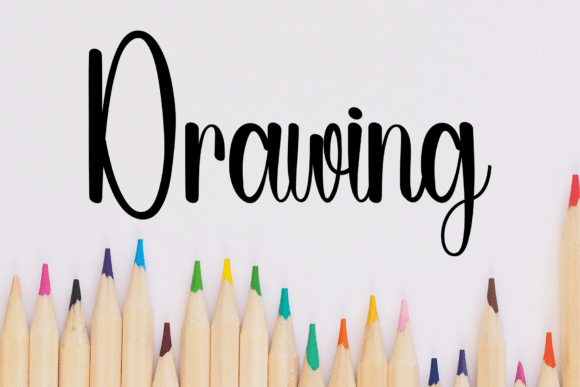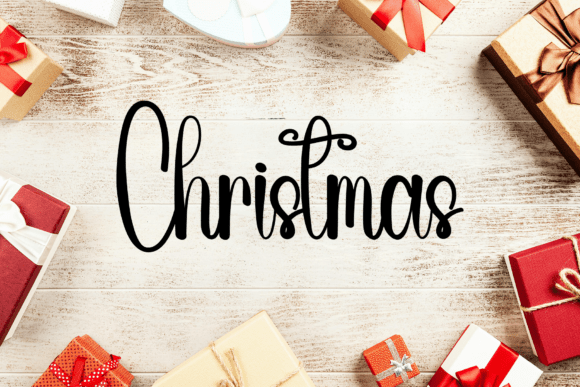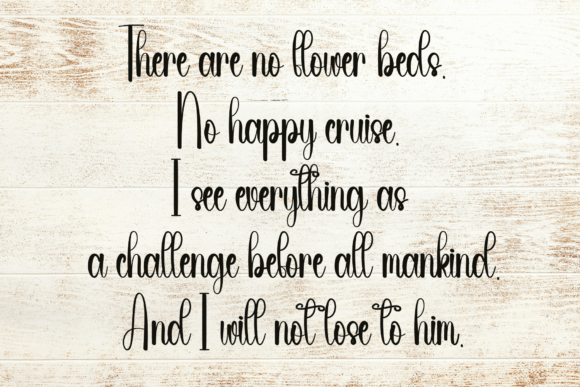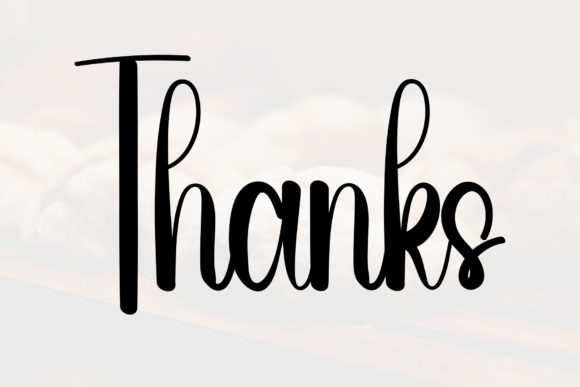
Unleashing the Perfect Blend of Elegant and Casual: The Augusta Font
There’s something magical about discovering the perfect font for a project – the moment when all the pieces fall into place, and you can envision the final result. It’s that feeling that drives designers to experiment, to try out new styles, and to push the boundaries of creativity. For those who’ve been searching for a font that captures the essence of luxury and elegance, while still exuding a relaxed, sporty vibe, the Augusta Font is sure to be a game-changer.
This versatile font is designed to bring a touch of sophistication to a wide range of applications, from branding and logos to wedding supplies, greeting cards, and marketing promotions. With its distinctive handwritten feel, reminiscent of being drawn with a marker, the Augusta Font adds a unique charm to any design.
Augusta Font Key Features
- Unique Characteristics: Features elegant, cursive script with subtle flourishes, ideal for formal invitations, wedding stationery, and luxury branding
Augusta Font Review
As a designer, I recently had the chance to work with the Augusta font, and I must say it’s a mixed bag. ✨ On the plus side, Augusta has a unique, elegant feel that’s perfect for projects that need a touch of sophistication. The font is highly legible, even at small sizes, and its versatility makes it suitable for a wide range of applications, from body text to headings.
The font’s design is a beautiful blend of classic and modern elements, making it a great choice for anyone looking to add a bit of personality to their work. The subtle flair at the ends of the strokes adds a touch of whimsy that’s hard to resist. ✨ Additionally, Augusta comes in a range of weights and styles, making it easy to find the perfect fit for your project.
However, there are some limitations to consider. ⚠️ One of the main issues I had with Augusta is its lack of support for non-Latin scripts. This makes it a less-than-ideal choice for projects that require multilingual support. Additionally, the font’s complexity can make it difficult to pair with other fonts, which may limit your design options.
Overall, I think Augusta is a solid choice for designers who need a high-quality font for their projects. While it may not be the best option for every project, it’s definitely worth considering for those that require a touch of elegance and sophistication.
- Highly legible, even at small sizes
- Unique, elegant feel
- Versatile and suitable for a wide range of applications
- Range of weights and styles available
- Lack of support for non-Latin scripts
- Complexity can make it difficult to pair with other fonts
Tips for Getting the Most Out of Augusta Font
Use Augusta Font for formal or elegant designs, such as invitations, business cards, or wedding stationery.
Combine Augusta Font with bold or italic styles for added emphasis.
Experiment with different font sizes and colors to achieve a unique look.
Augusta Font is ideal for:
Wedding stationery, invitations, and thank-you cards.
Business cards, letterheads, and company brochures.
Formal event invitations, such as galas or award ceremonies.
Alternatives to Augusta Font
Carey
Carey is a serif font that works well for body text and is suitable for documents, articles, and books. It has a classic and elegant feel to it. Carey is more elegant and refined compared to Augusta Font, with a slightly smaller x-height and more delicate letterforms.
Merriweather is a classic serif font that is great for body text and works well in documents, articles, and books. It has a strong and elegant feel to it. Merriweather is more formal and traditional compared to Augusta Font, with a slightly larger x-height and more dramatic letterforms.
Lato is a sans-serif font that works well for headings and titles. It has a clean and modern feel to it. Lato is more modern and sleek compared to Augusta Font, with a more condensed letterform and a more open spacing.
The recommended font size for using Augusta Font varies depending on the intended use. For body text, a font size between 10-14 points is recommended. For headings and titles, a font size between 18-24 points is suggested. This will ensure optimal readability and visual impact.